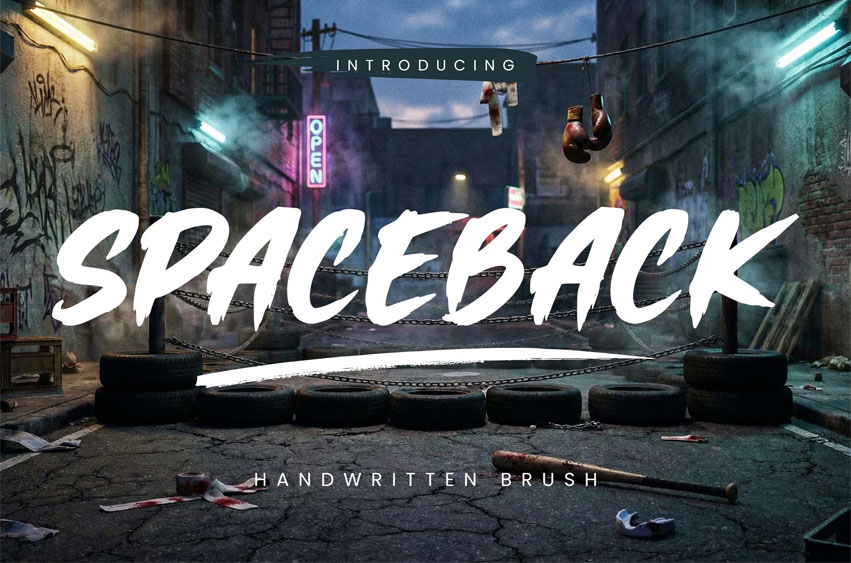
Spaceback Font is a raw, high-energy handwritten brush typeface designed to deliver a knockout punch. This font is not just rough; it is a dynamic, action-packed display tool, leveraging its aggressive, textured strokes to command attention and bring intense energy to your designs.
Inspired by classic arcade fighting games and urban street culture, Spaceback features authentic, fast hand-drawn brush strokes combined with a fierce, rebellious attitude. The bold, textured structure ensures maximum impact and dynamic movement for titles and standout graphics.
• Authentic Handwritten Brush Texture: Hand-crafted, gritty, and full of raw action.
• Aggressive & Dynamic: Captures the intense energy of street combat and arcade fighters.
• High-Impact Aesthetic: Rough edges and fast strokes add a rebellious, urban flair.